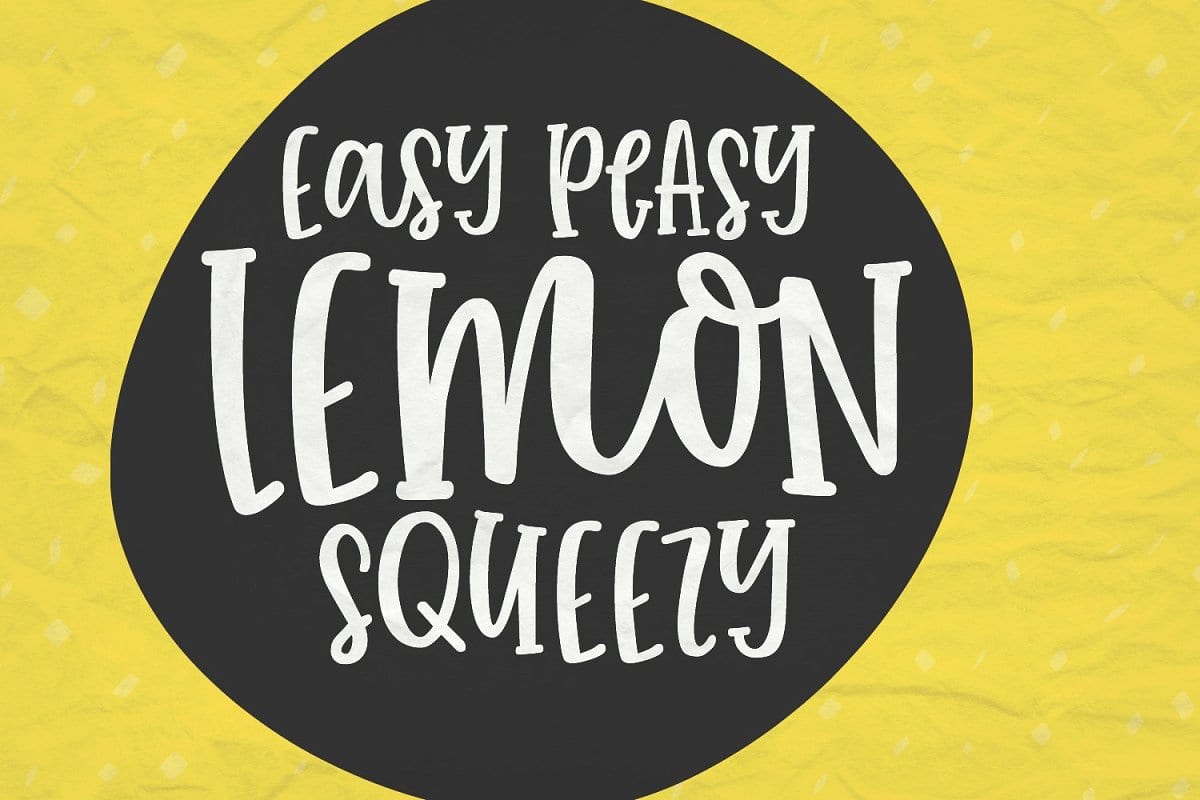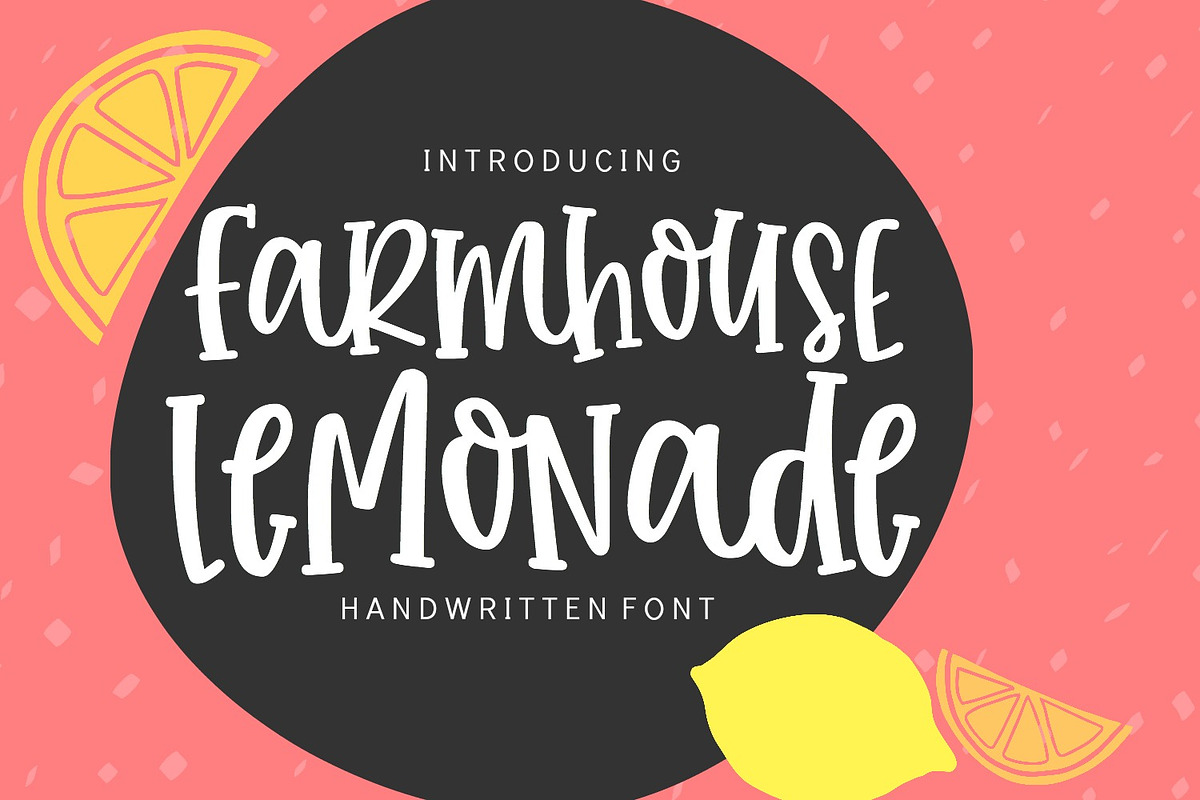
Farmhouse Lemonade Font
Farmhouse Lemonade Font - Web introducing farmhouse lemonade! This handwritten font is playful and feminine, and versatile for so many. Votes, rated based on results identification.
Votes, rated based on results identification. Web introducing farmhouse lemonade! This handwritten font is playful and feminine, and versatile for so many.
This handwritten font is playful and feminine, and versatile for so many. Web introducing farmhouse lemonade! Votes, rated based on results identification.
Farmhouse Lemonade Handwritten Font Creative Daddy
Votes, rated based on results identification. Web introducing farmhouse lemonade! This handwritten font is playful and feminine, and versatile for so many.
SS Farmhouse Lemonade Font
Votes, rated based on results identification. Web introducing farmhouse lemonade! This handwritten font is playful and feminine, and versatile for so many.
Farmhouse Lemonade Font Create font, Cute fonts, Lemonade
This handwritten font is playful and feminine, and versatile for so many. Votes, rated based on results identification. Web introducing farmhouse lemonade!
Web introducing farmhouse lemonade! Votes, rated based on results identification. This handwritten font is playful and feminine, and versatile for so many.
Votes, rated based on results identification. Web introducing farmhouse lemonade! This handwritten font is playful and feminine, and versatile for so many.
Web introducing farmhouse lemonade! This handwritten font is playful and feminine, and versatile for so many. Votes, rated based on results identification.
Farmhouse Lemonade Handwritten Font Creative Daddy
This handwritten font is playful and feminine, and versatile for so many. Votes, rated based on results identification. Web introducing farmhouse lemonade!
This handwritten font is playful and feminine, and versatile for so many. Web introducing farmhouse lemonade!